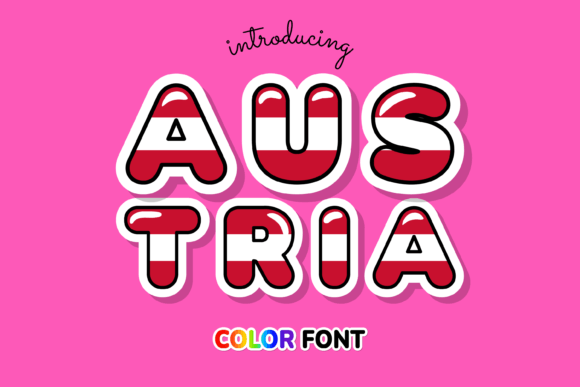
Introducing Austria Font - Where Art and Expression Collide!
Embark on a creative odyssey with Austria Font, a mesmerizing color font family that captures the allure of the Austrian Flag. Crafted with meticulous artistry, Austria Font is the ultimate choice for connoisseurs of design, DIY enthusiasts, and those seeking a font that adds a touch of magic to their creations.
Unleash Your Inner Artist
With Austria Font, your imagination takes center stage. Design custom creations that exude personality, elegance, and captivating charm. Explore a world where words dance with colors, gradients, and textures, creating visual masterpieces that leave a lasting impression.
Ignite Your Creativity
Austria Font is a versatile chameleon, transforming effortlessly from a vibrant and energetic companion for your custom designs to a subtly sophisticated accent for your DIY crafts. It seamlessly blends into any project, like a chameleon adapting to its surroundings, enhancing your creations with a touch of magic and delight.
Cricut Crafters, Behold Your New Ally!
Austria Font is the perfect foil for Cricut enthusiasts, offering an array of possibilities for your creative pursuits. Whether you're designing decals, creating custom cards, or embellishing home décor, Austria Font will elevate your projects to new heights of artistry and beauty. With its ability to add multiple colors, gradients, and textures, your creations will radiate with a vibrancy that captivates and inspires.
A Font That's a Work of Art
Austria Font is more than just a collection of characters; it's a testament to the power of imagination and the beauty of artistic expression. Each letter is a brushstroke, each word a masterpiece, and every sentence a symphony of colors and textures. Transform ordinary text into an extraordinary display that commands attention and leaves a lasting impression.